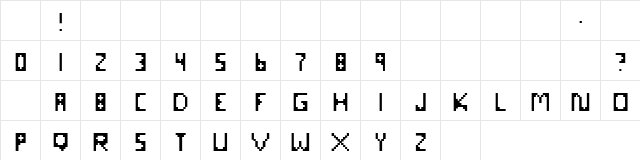
Maximum Radiation Level Regular
Design Context for Maximum Radiation Level
Maximum Radiation Level is a composed and adaptable typeface that performs quietly and consistently across a wide range of design contexts.
Pro Tip: Use Maximum Radiation Level in both headline and body roles to test its range before committing to a single application.